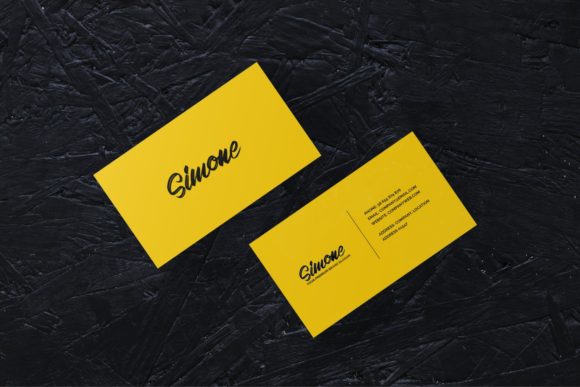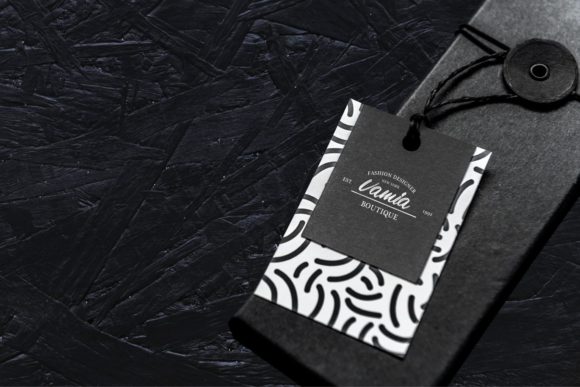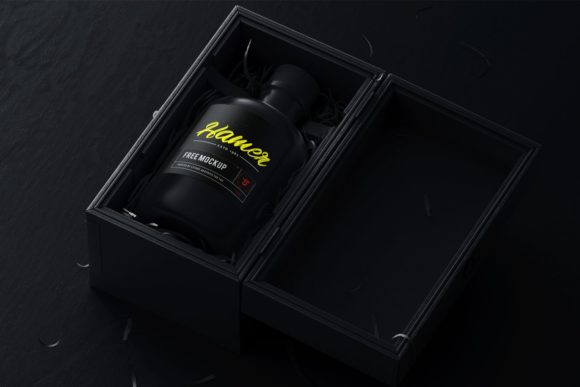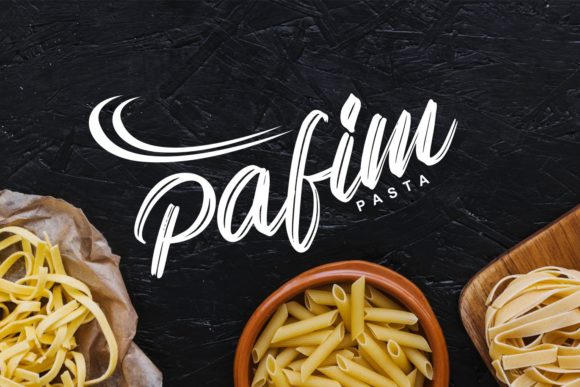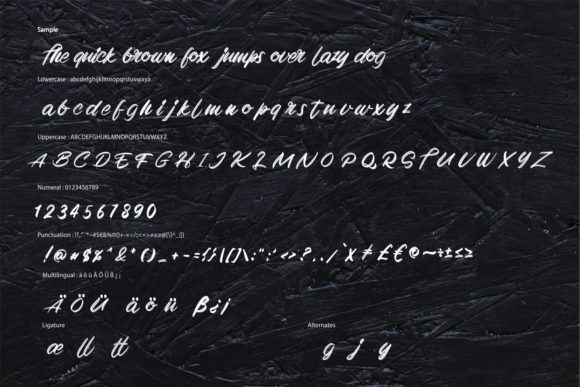
Introduction to Regad Font
Regad is an interesting script font with a unique style.
Fall in love with its playful look & feel .
Key Features of Regad Font